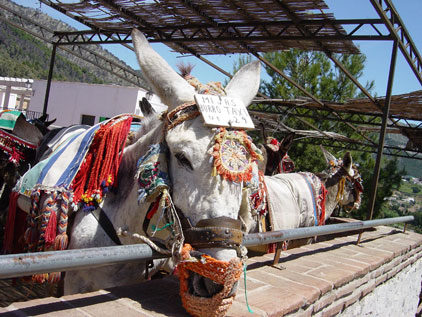
Would you like a trip riding a TAXI-donkey (Burro-taxi)? Sure! Just
choose the most friendly donkey in the parking lot and tell him you'd
like to have a ride.
You can have a nice tour around Mijas (Málaga)
as Curro Jiménez *) did sometime time ago. But
don't take your guns with you! It's time to ride and have a tour through
type and design. |
From hotel signs to menu
bar billboards, including stencil pope graffiti. Each zone has it's
own Type. Type has also it's own Time.